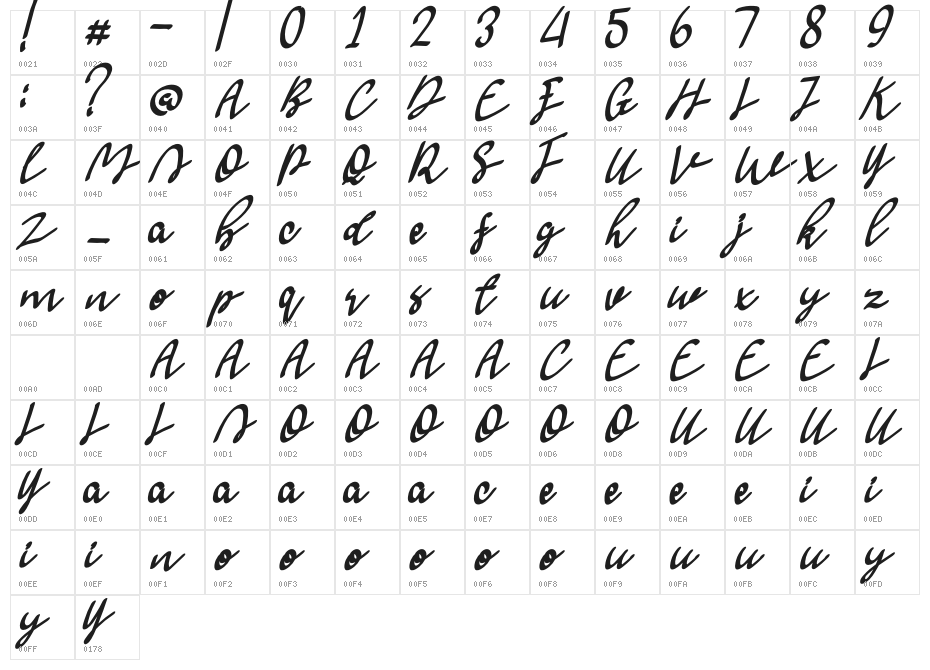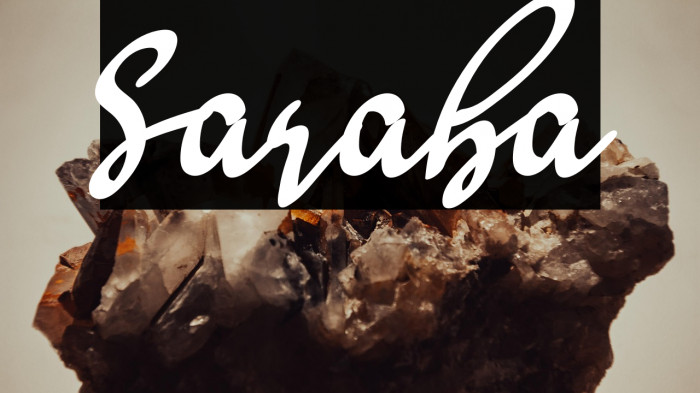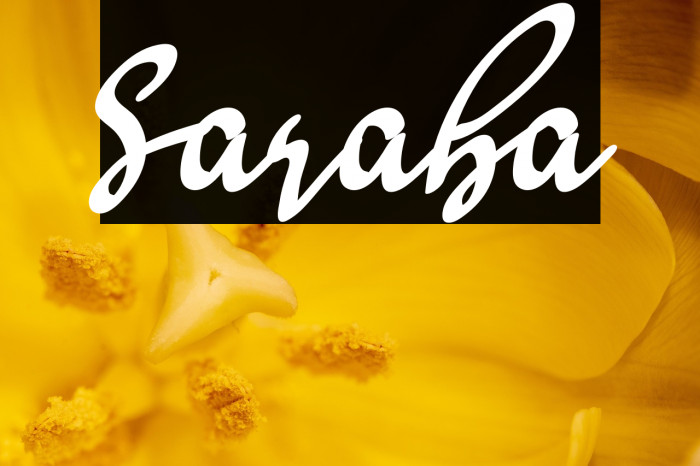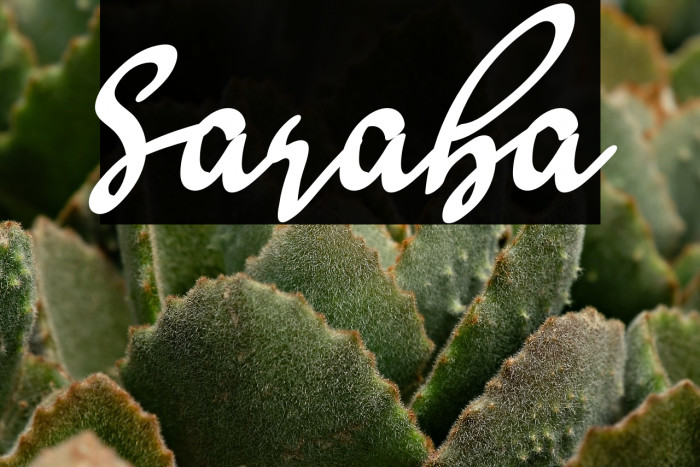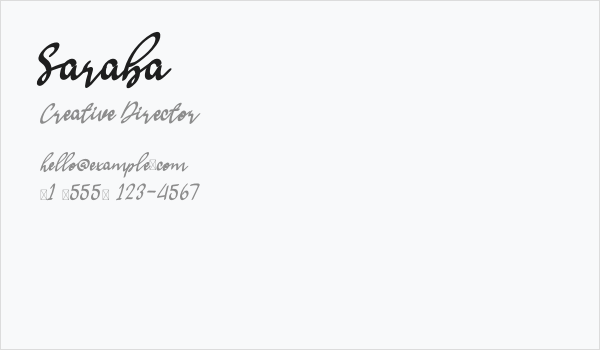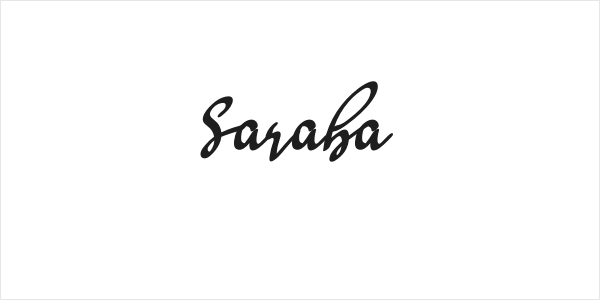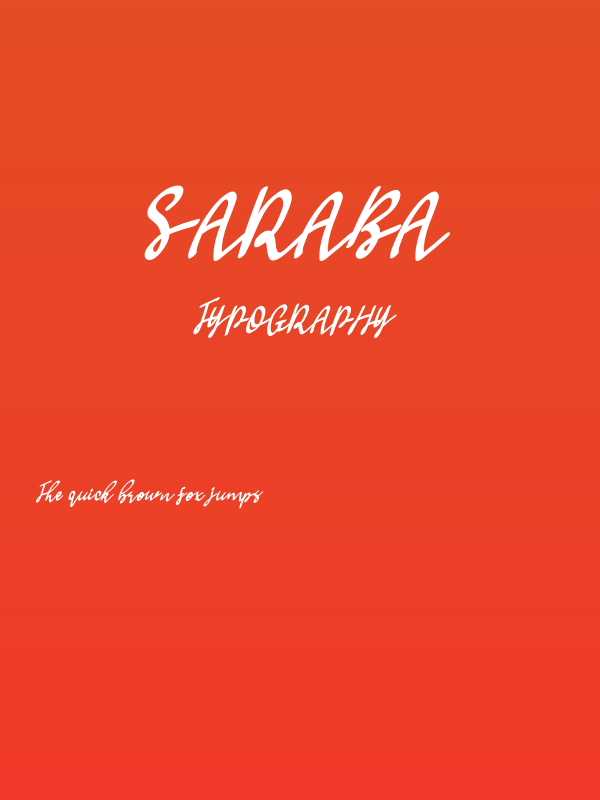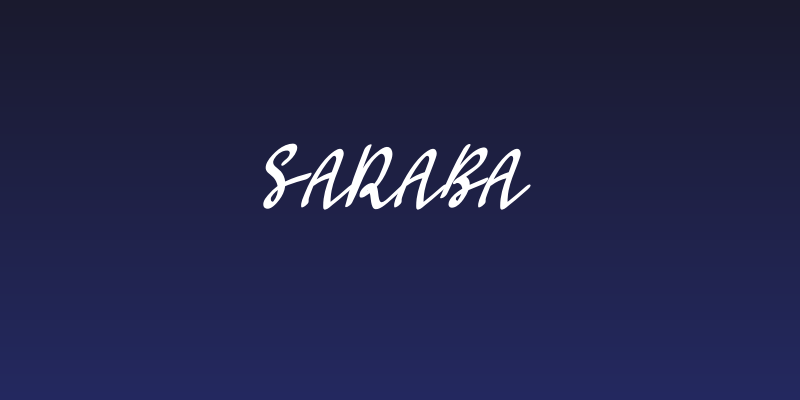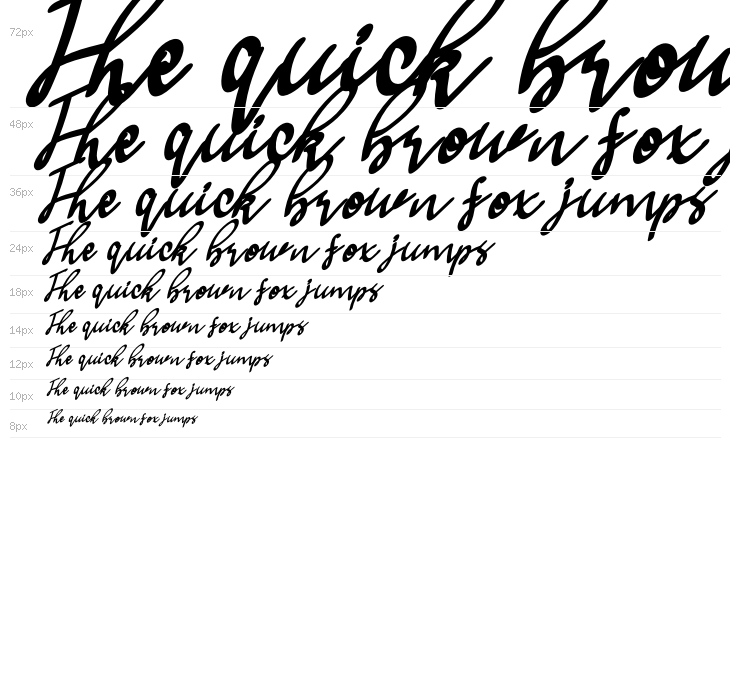
Saraba Font
Saraba Description
A flowing, cursive script font with a handwritten style, featuring smooth, connected letters and a casual elegance.
| Use Case | Logos, Invitations |
| Proposed Projects | Invitations, greeting cards, personal branding. |